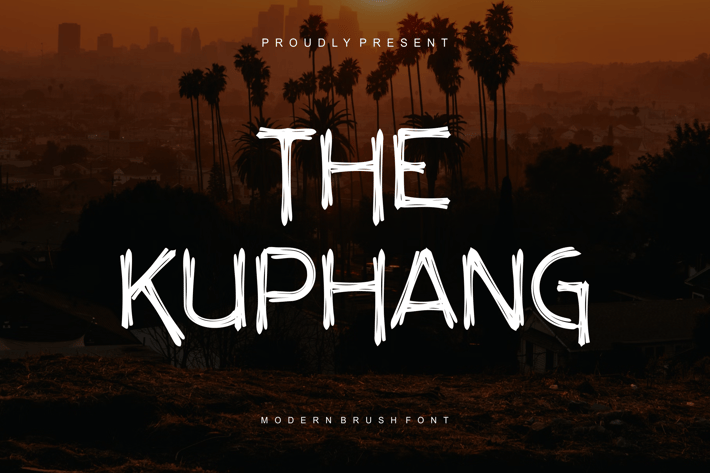
The Kuphang - Modern Brush Font
Introducing our new product The Kuphang Font - Modern Brush Font
The Kuphang Font- Modern Brush Font is a bold and authentic display font. The font is suitable for any branding project like logo,
t-shirt printing, esport, and many more. outstanding in a wide range of contexts.